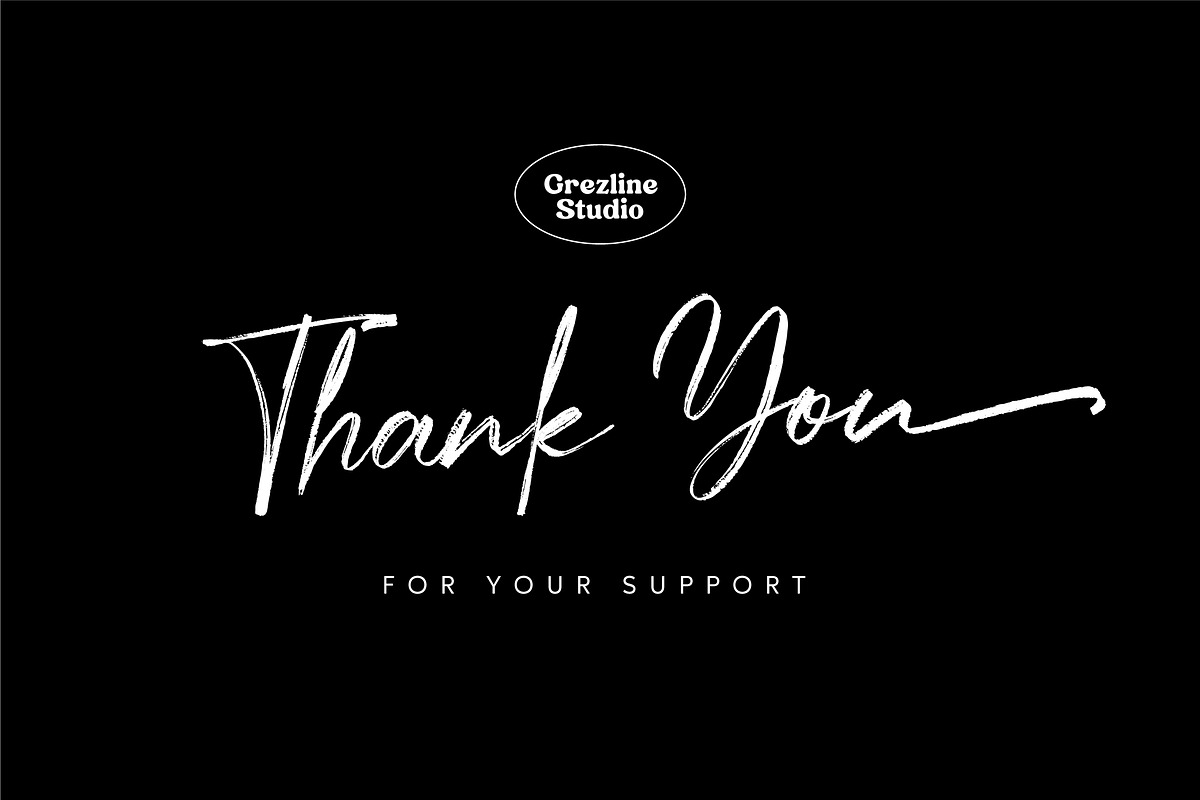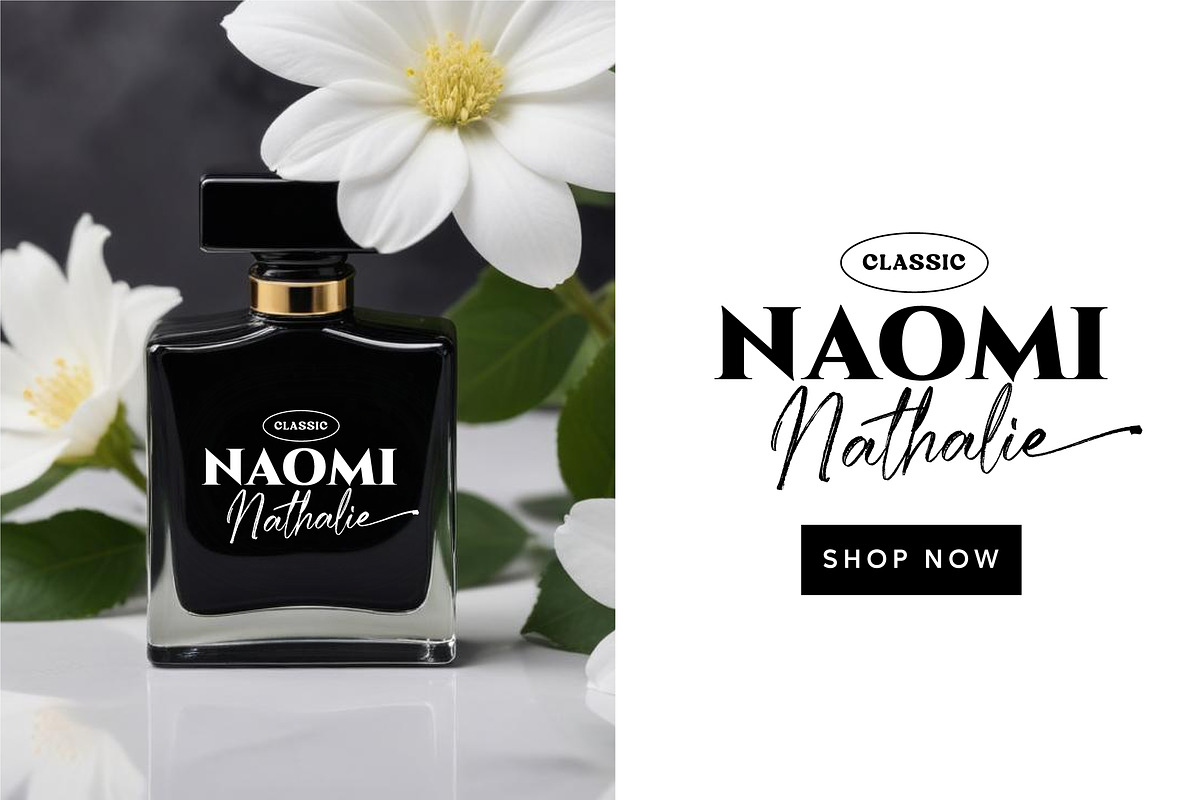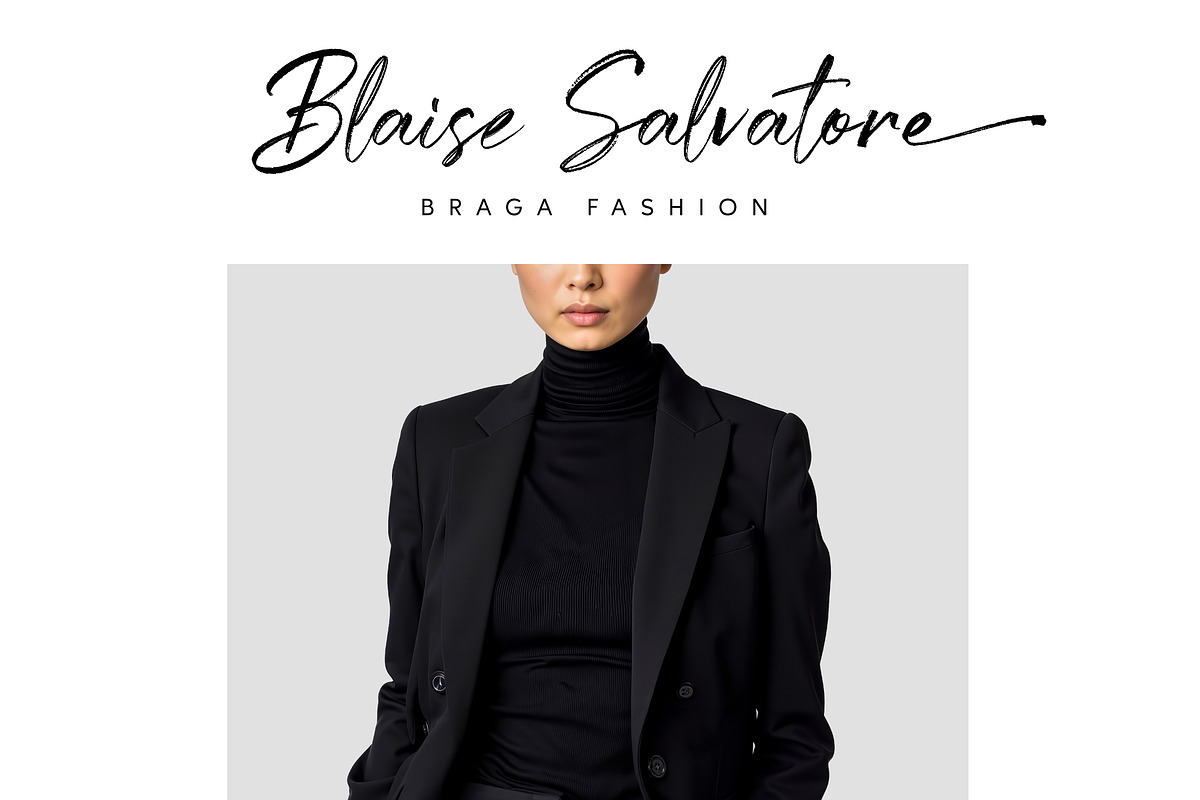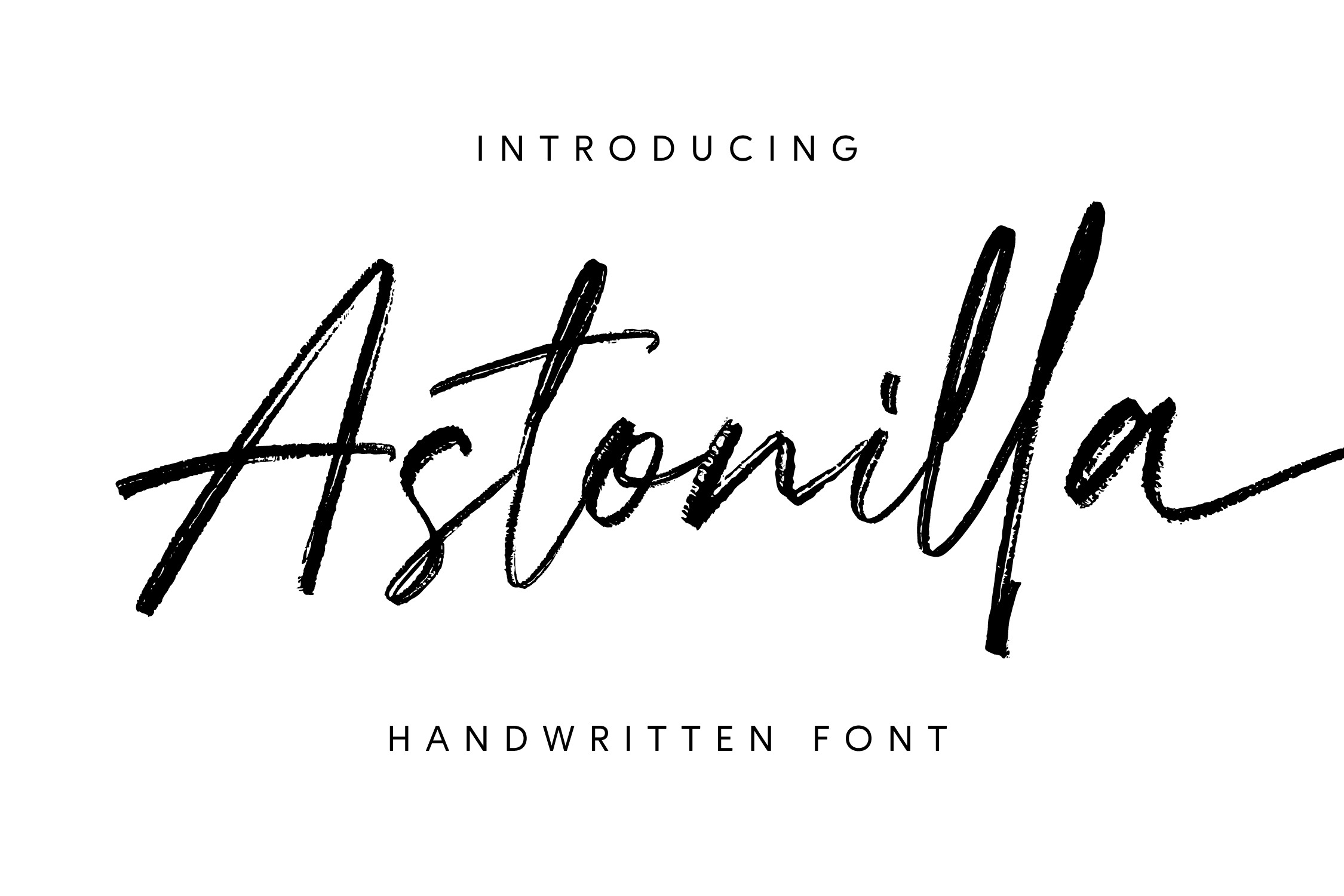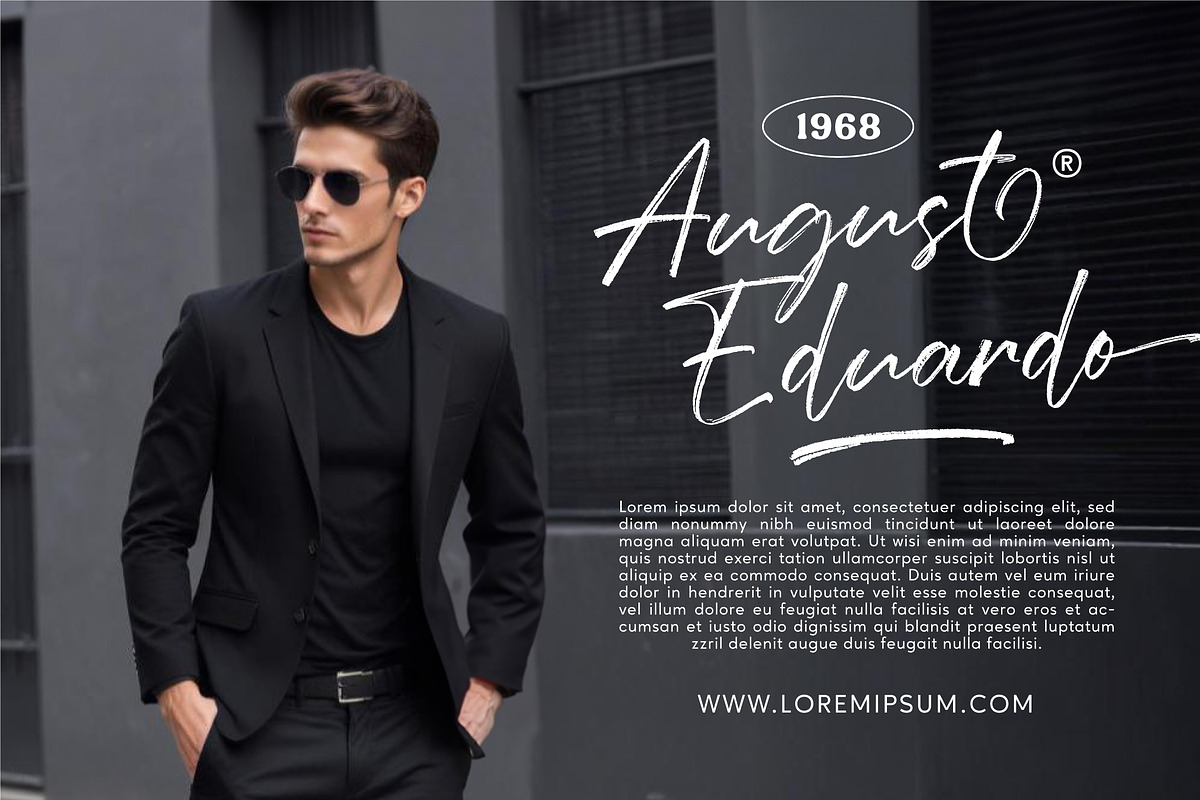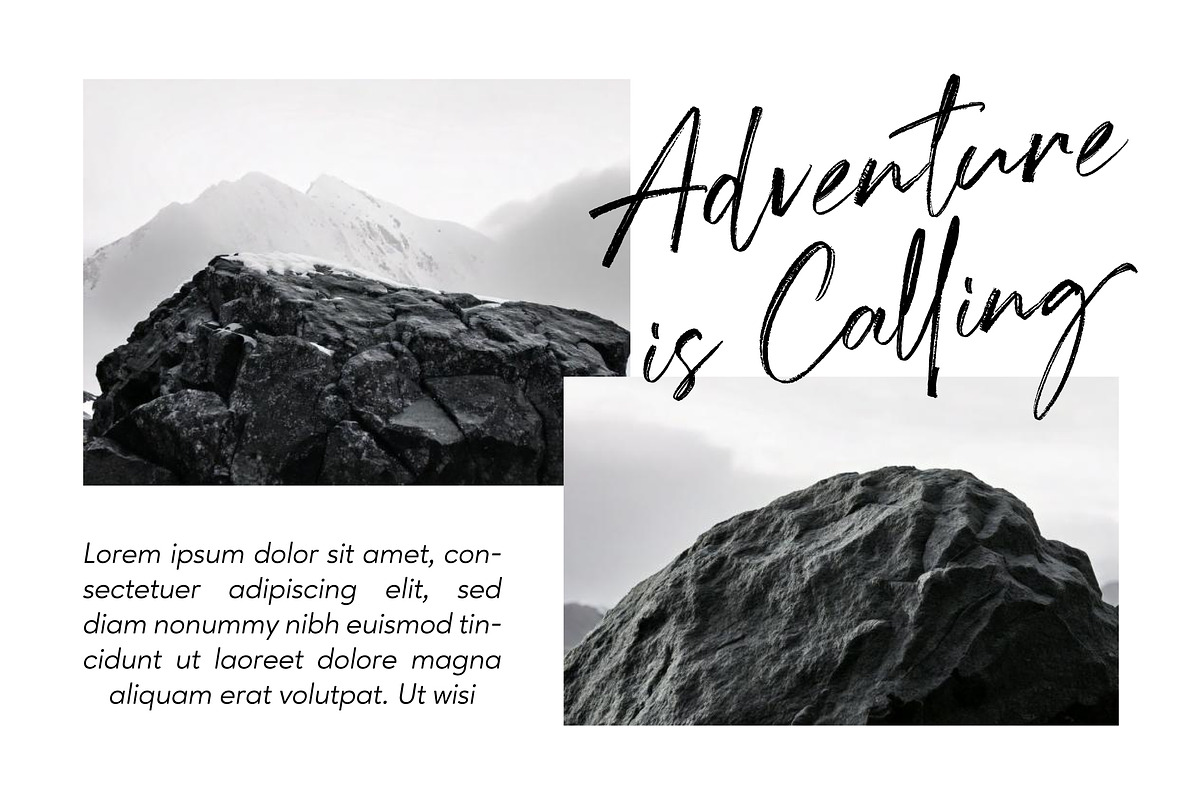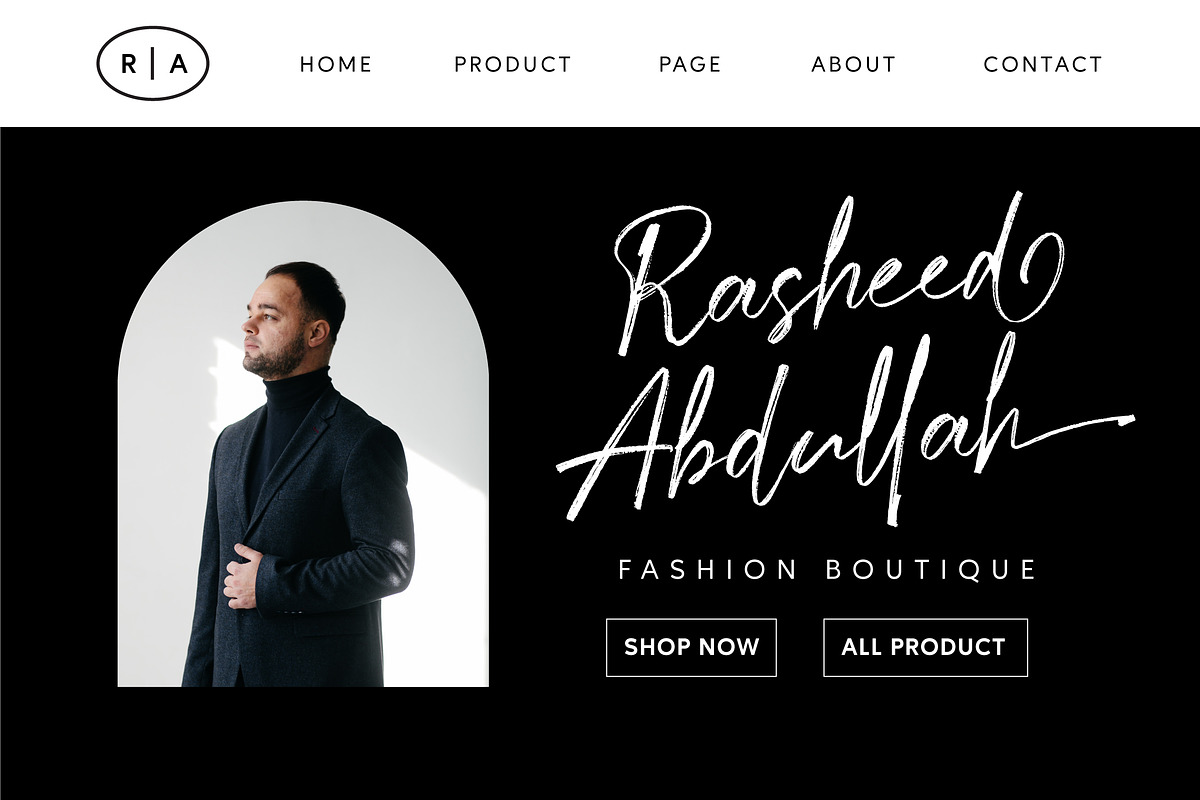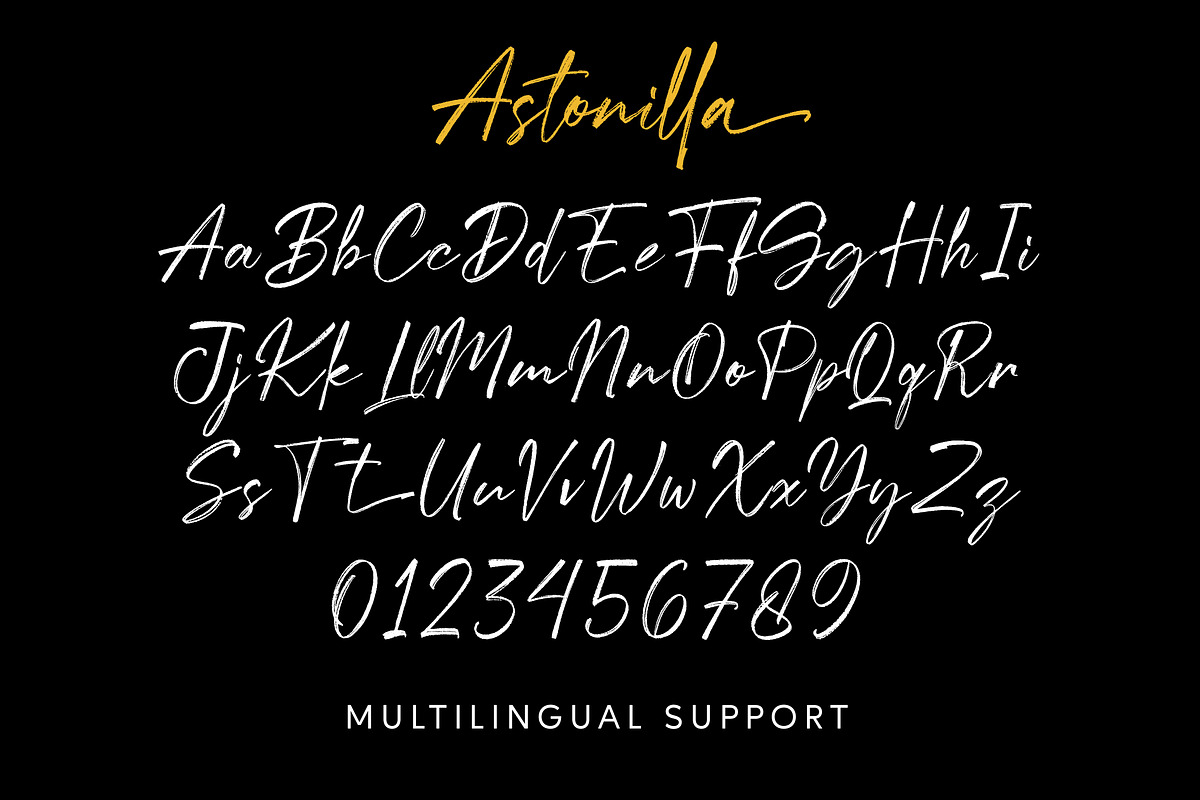
Astonilla – Handwritten Script Font
Astonilla is a brush handwritten script font. Unleash the artist within you and let your words come alive with this brush font—a perfect blend of elegance, creativity, and authenticity. Whether you're designing a stunning logo, crafting a heartfelt invitation, or creating eye-catching social media posts, Astonilla font adds that personal, handcrafted touch to every project. Dive into the world of creative typography and let your ideas flow freely, one beautiful stroke at a time.
- Alternate and Ligature
- Multilingual Language